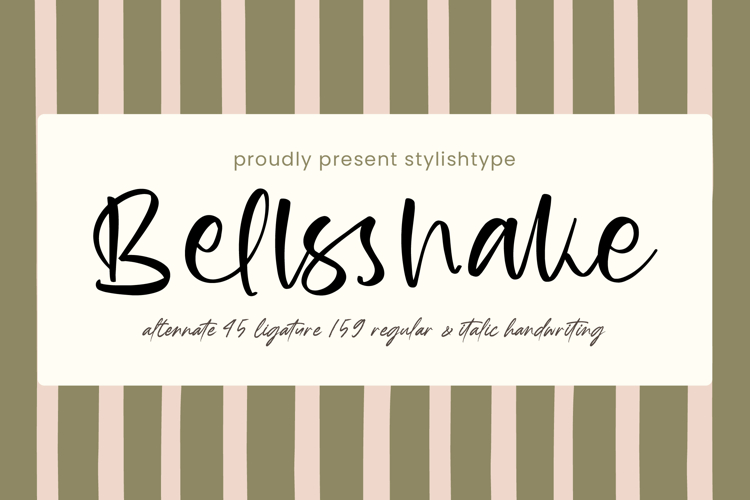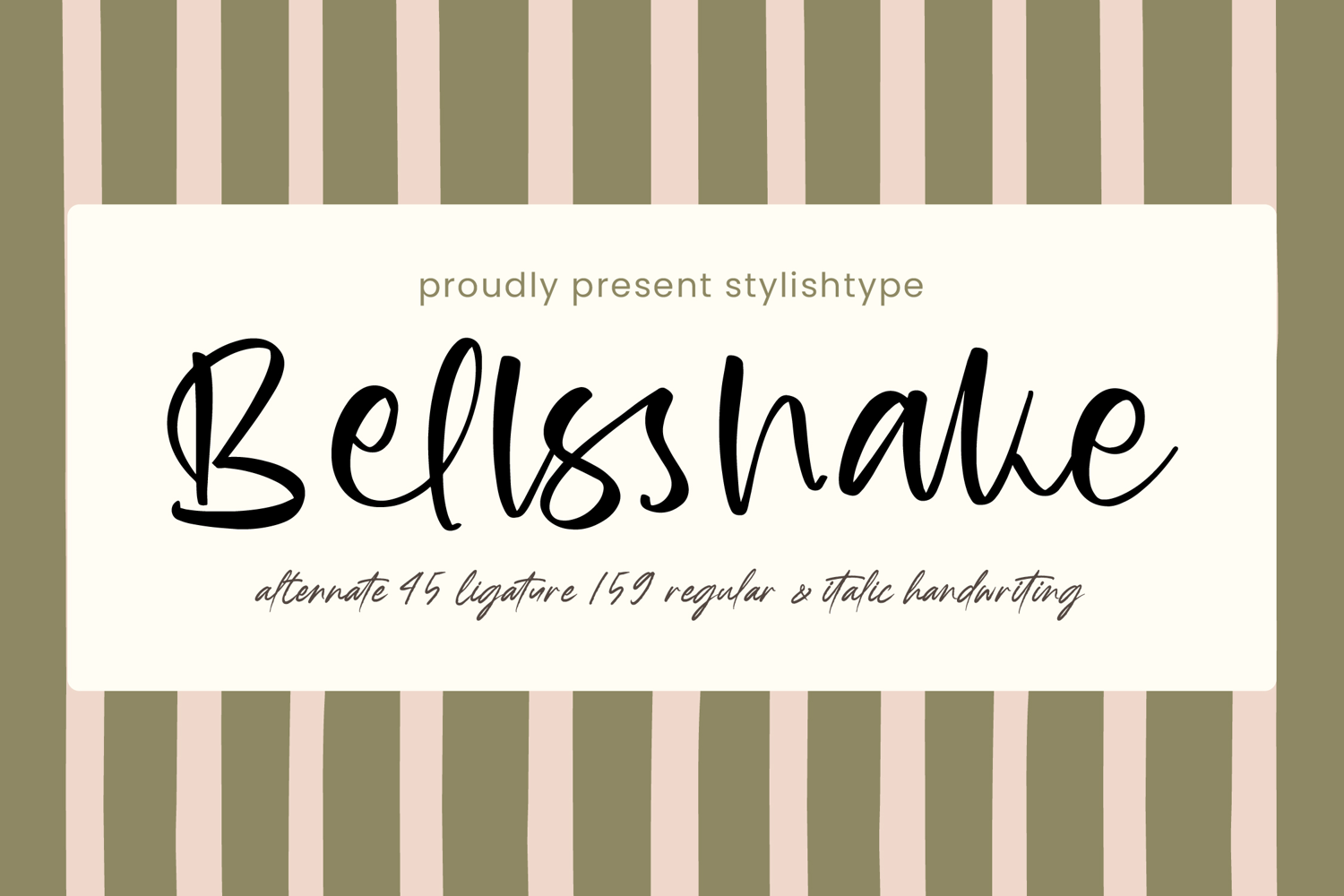
Bellsshake Modern Handwritten Font
Bellsshake – Modern Handwritten Font combines the warmth of a touch with the precision of professional design. Its fluid strokes and organic flow provide a contemporary aesthetic that feels both intimate and refined. By balancing expressive handwriting with high legibility, this font serves as the perfect bridge between casual charm and high-end elegance for any creative endeavor.
Expand your creative reach with a typeface designed for a connected world. With its extensive multilingual support, Bellsshake – Modern Handwritten Font adapts seamlessly across global markets, making it incredibly versatile for international projects. This comprehensive character set ensures that your message remains consistent and impactful, regardless of the region or language. It is an essential tool for designers seeking a global typographic solution that does not compromise on style .
Experience unparalleled flexibility through meticulous craftsmanship and advanced OpenType features. The true strength of Bellsshake – Modern Handwritten Font lies in its rich variety of stylistic alternates and custom ligatures, which allow for a truly bespoke typographic experience. Whether you choose the regular or the dynamic italic handwriting style, the font maintains a premium aesthetic that looks stunning in both digital and print formats. Its thoughtful design ensures that every word looks curated, helping your brand stand out in a saturated marketplace.